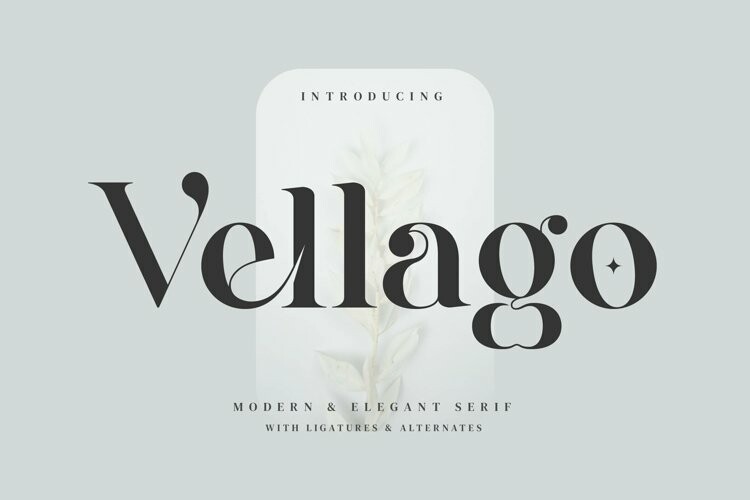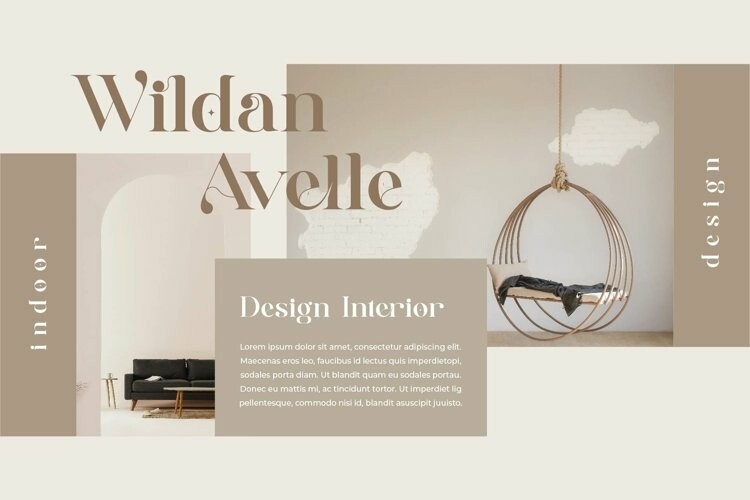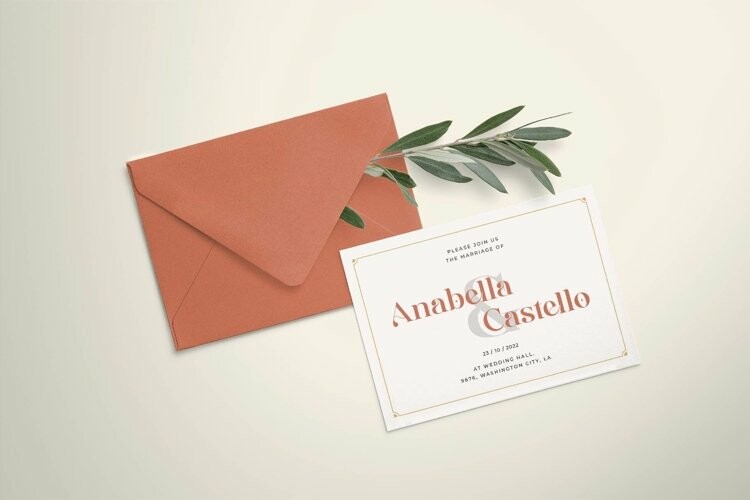
Vellago – Stylish Ligature Font
Vellago - Stylish Ligature FontVellago Stylish Ligature Typeface, inspired by the famous minimalist logo perfect for the purposes of designing templates, brochures, videos, advertising branding, logos and more.